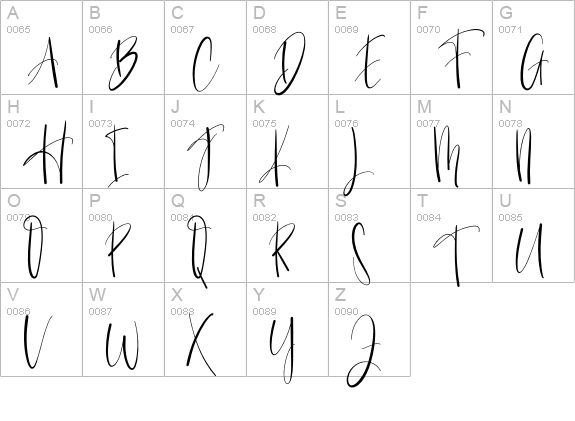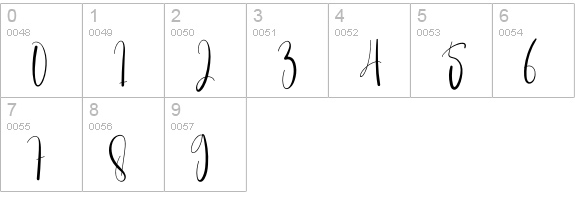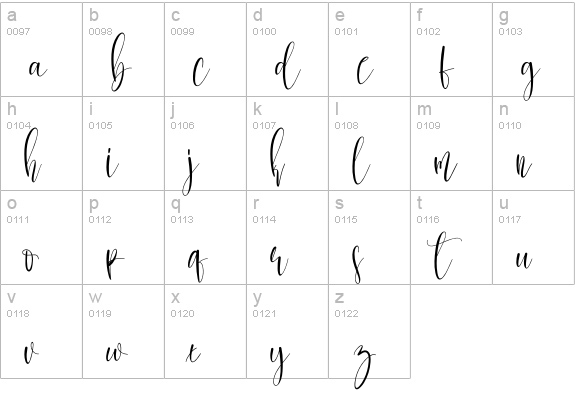
Christmas Family Font Details
Christmas Family is a free for personal use font in the Script > Handwritten category, designed by scratchones. It has been downloaded 4 times and is available for Windows, Mac and Linux.
Christmas Family font is a delightful and festive typeface perfect for all your holiday design needs. With its charming and whimsical style, this font will bring a touch of Christmas cheer to your projects. The Christmas Family font includes a variety of playful characters and decorative elements that will add a joyful and merry vibe to your designs.